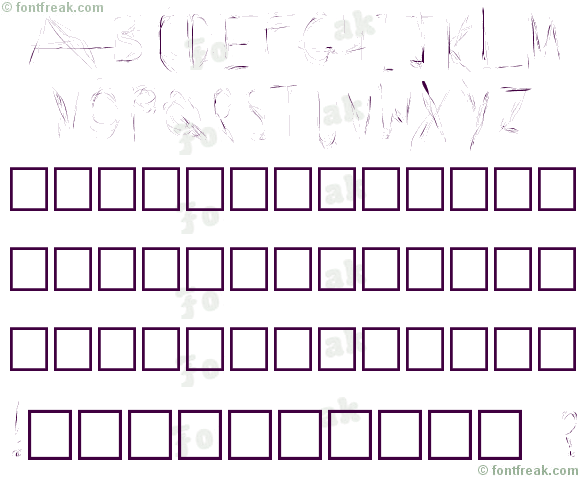
Secret Labs
The Secret Labs font, created by Divide By Zero and designed by Tom Murphy, is a striking display typeface that embodies a unique blend of creativity and modernity. As a decorative typeface, its playful character is perfect for capturing attention while maintaining legibility. The font features a balanced stroke weight that adds a sense of dynamism, while the contrasting elements give it an eye-catching appeal. The spacing is meticulously crafted, ensuring that each letter stands out, making it ideal for various design applications.
Secret Labs is particularly well-suited for use cases such as branding, where a distinctive look can help a company stand out. Its playful nature makes it a fantastic choice for event posters, especially in creative industries such as music festivals or art exhibitions. Additionally, the font can elevate restaurant menus, giving them an inviting and contemporary feel that entices diners. It's also an excellent option for social media graphics, allowing content creators to present their messages in a visually engaging way.
The target audience for the Secret Labs font includes graphic designers, small business owners, and content creators who seek to enhance their projects with a unique typographic touch. Whether you're designing a logo or crafting a promotional flyer, this font provides an excellent option for those looking to make a statement.
What truly sets the Secret Labs font apart is its ability to blend fun and professionalism, making it versatile across various contexts. Its free availability as a freeware license allows designers and creators to experiment with a unique aesthetic without financial constraints. For anyone interested in adding a fresh and engaging typeface to their toolkit, the Secret Labs font free download is an opportunity not to be missed.